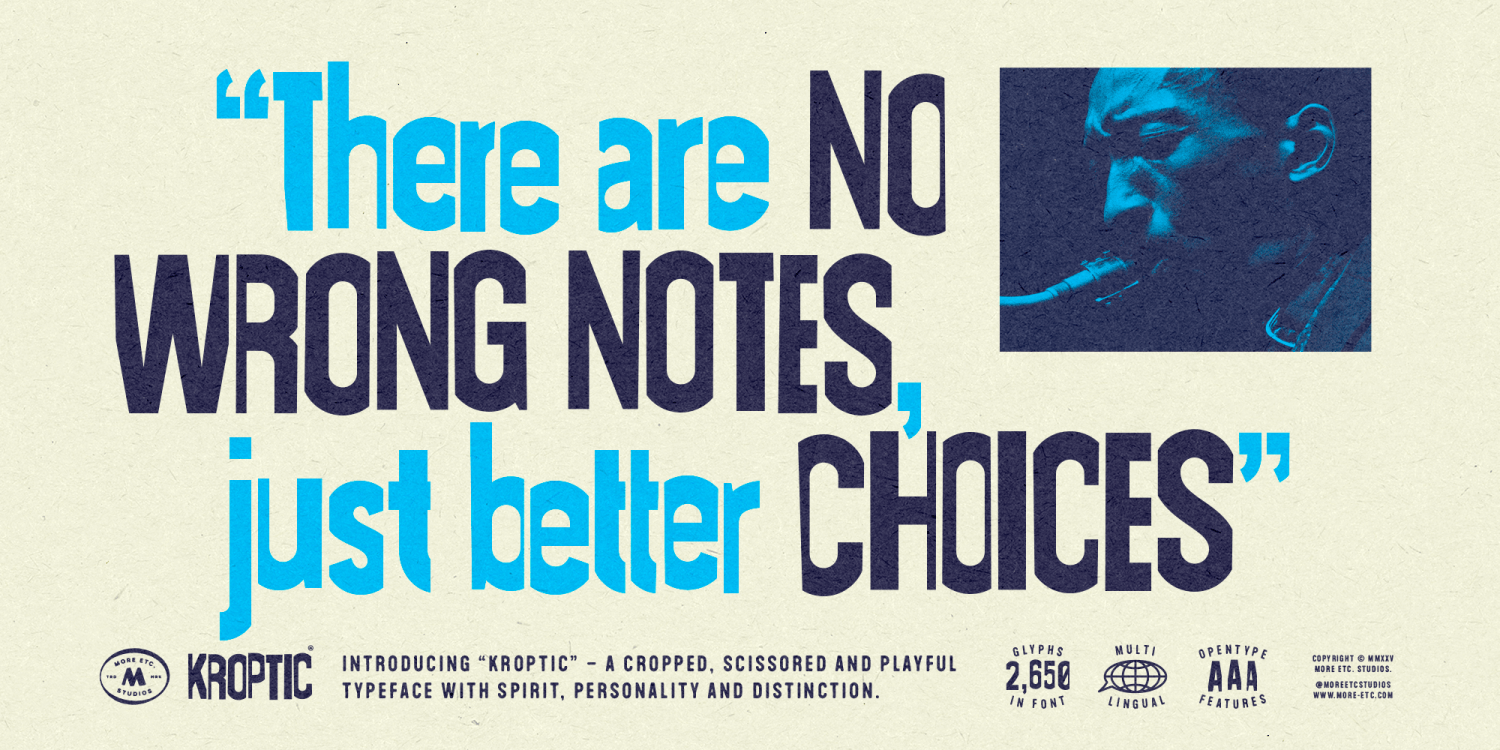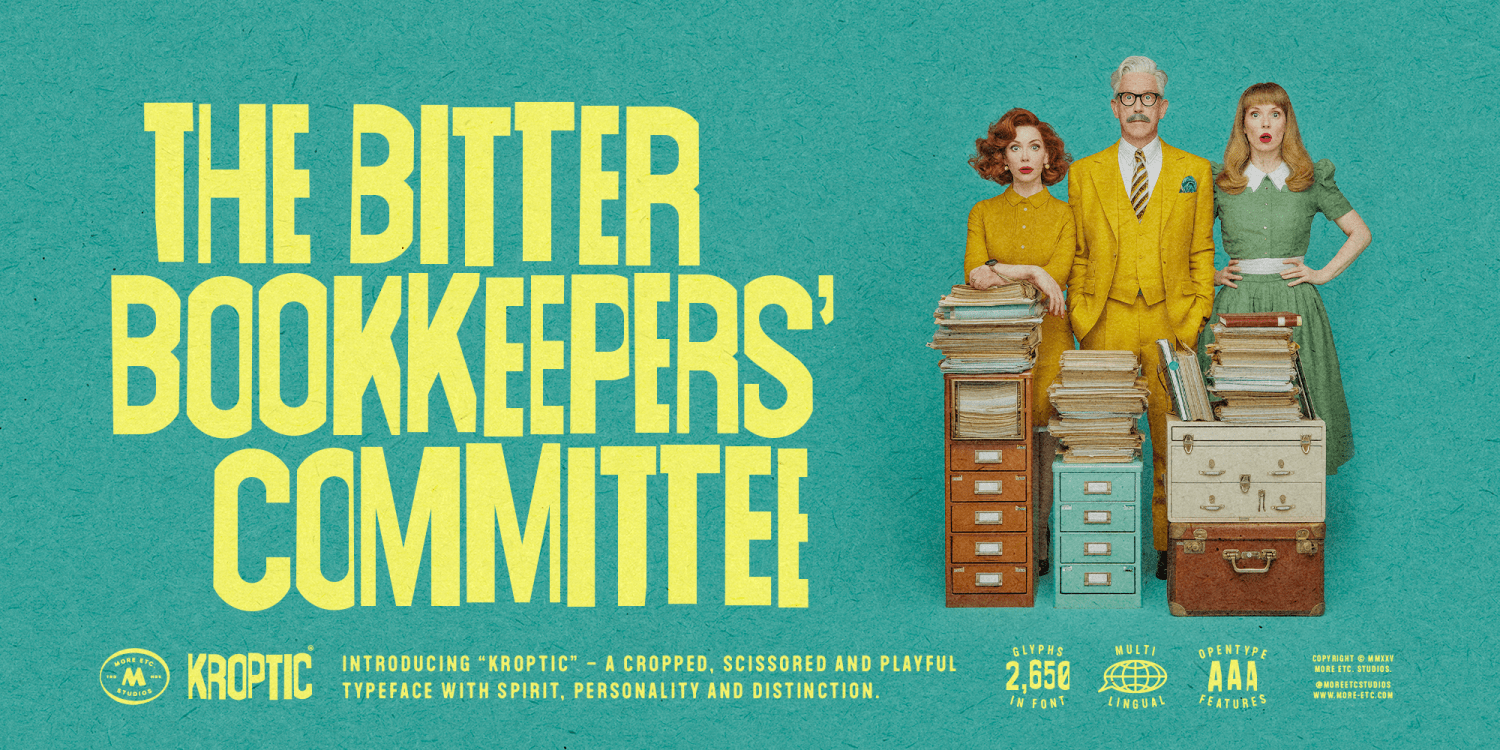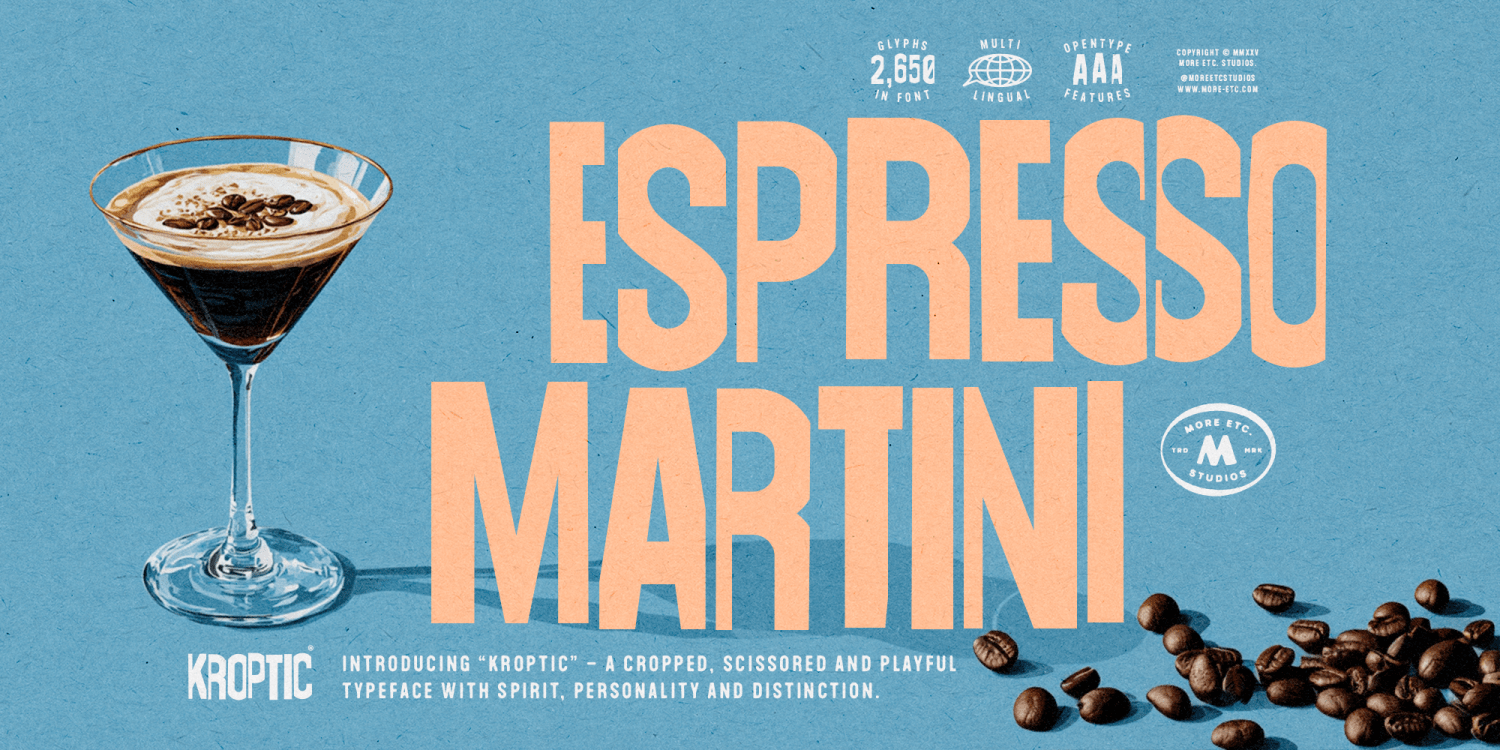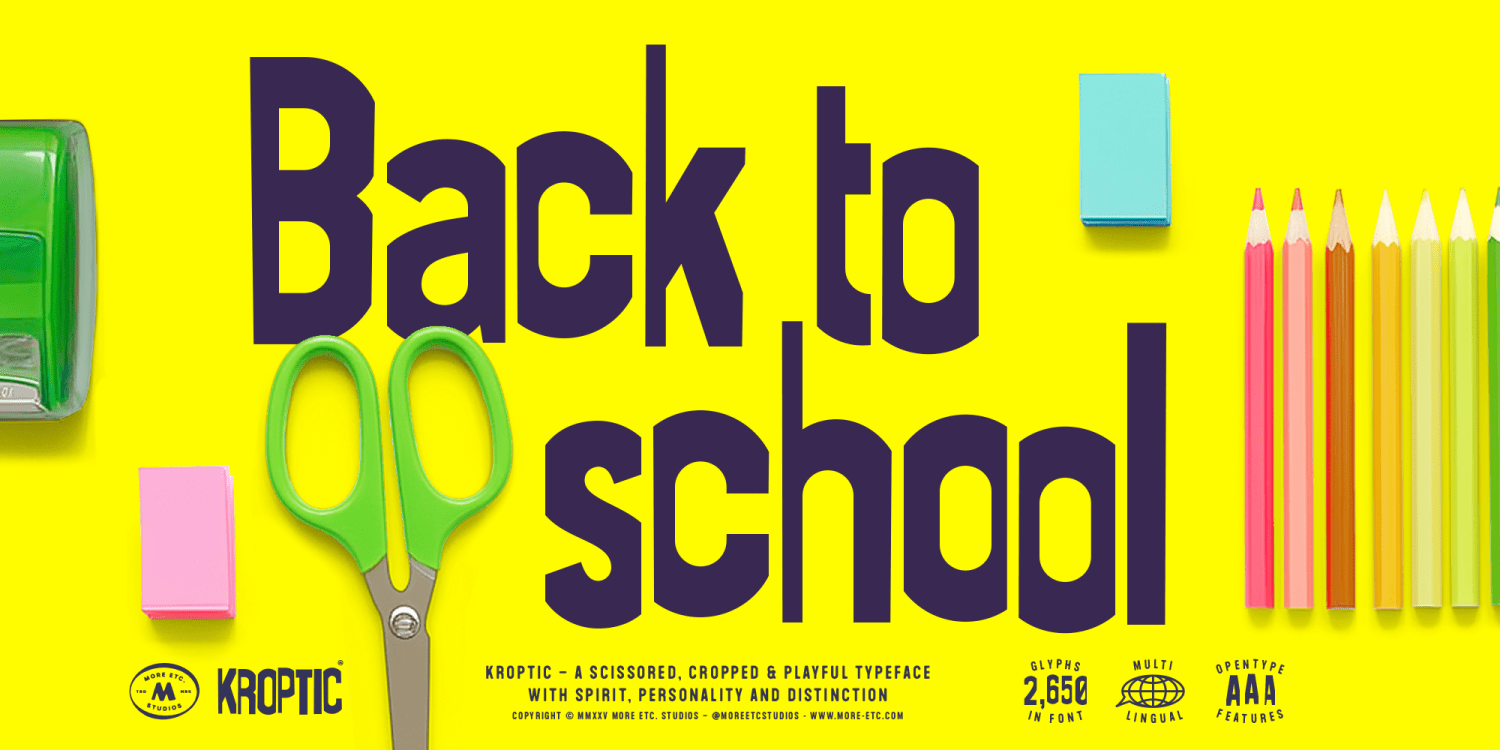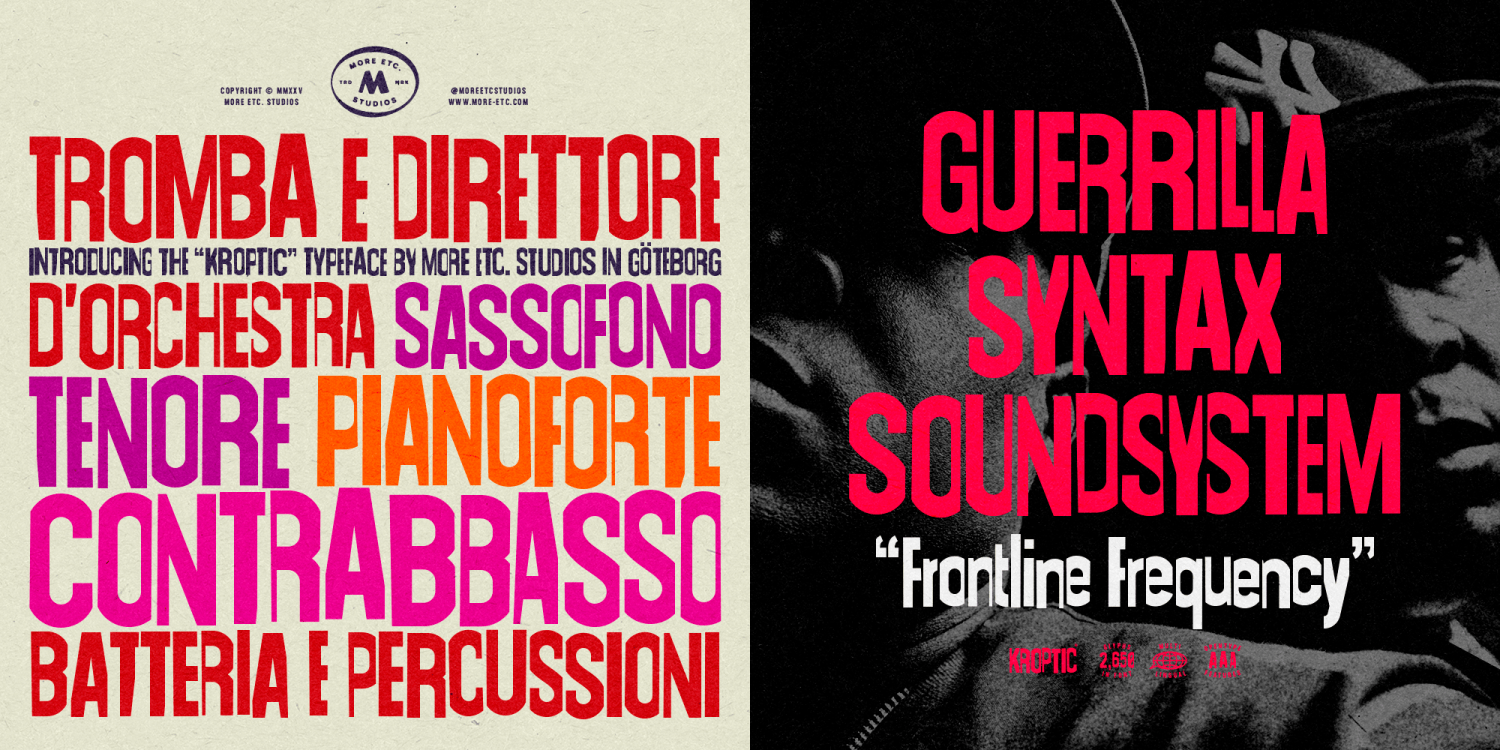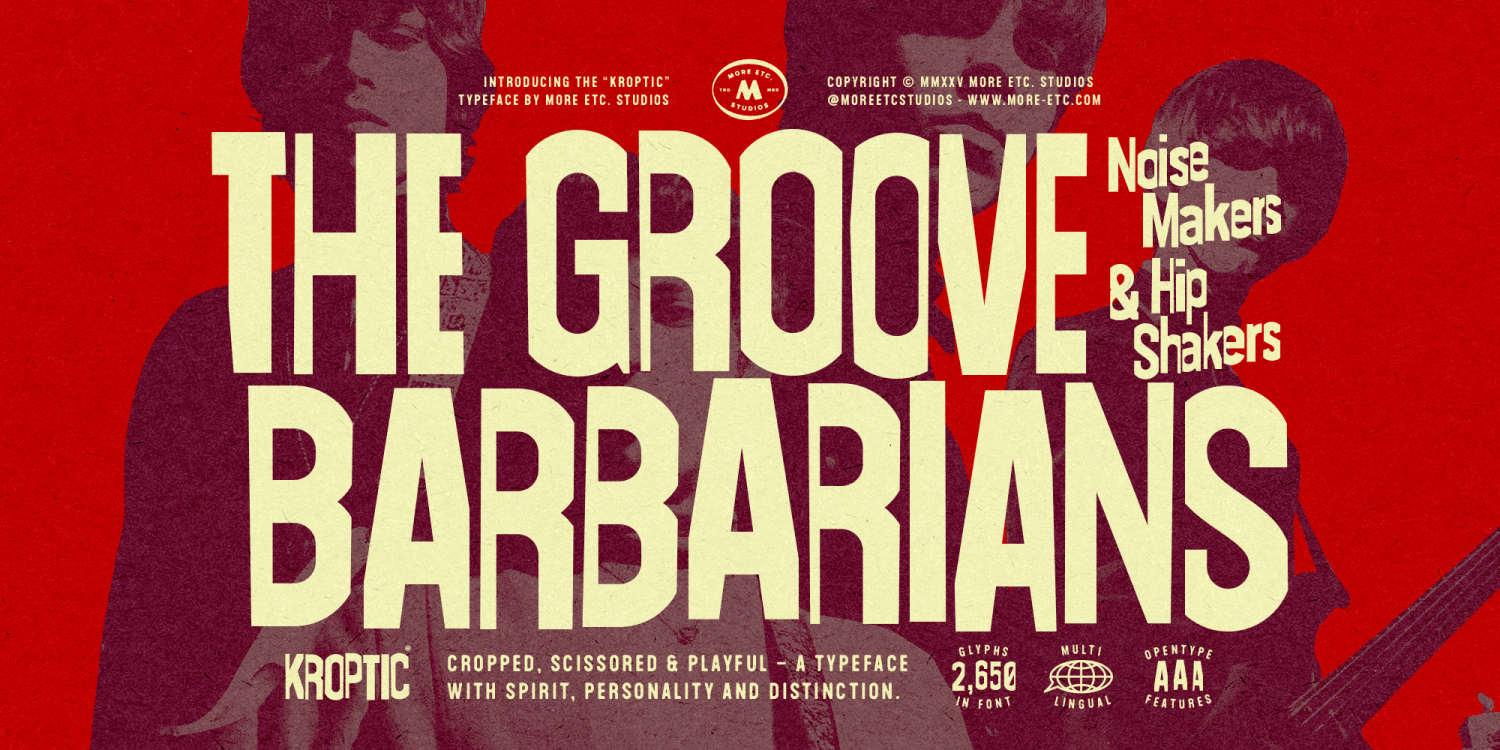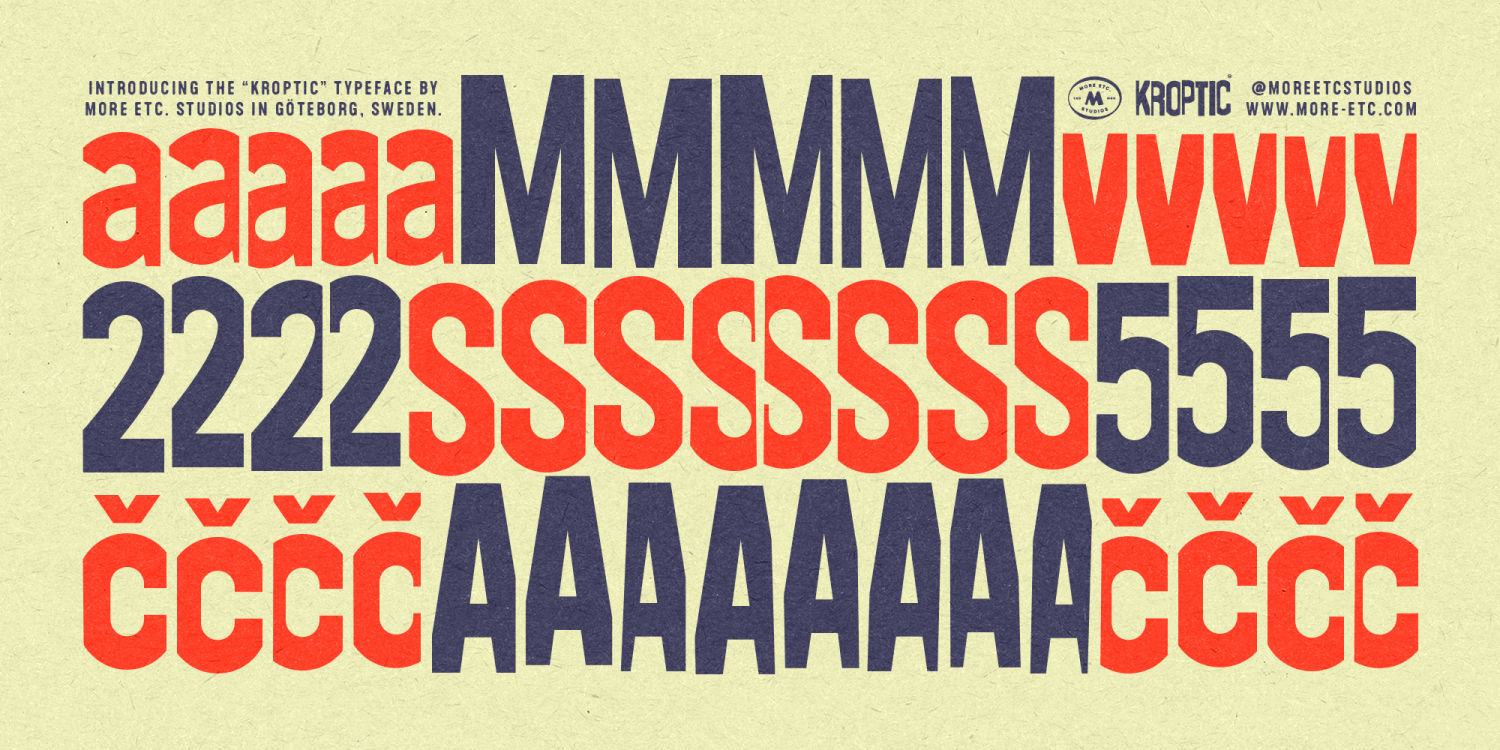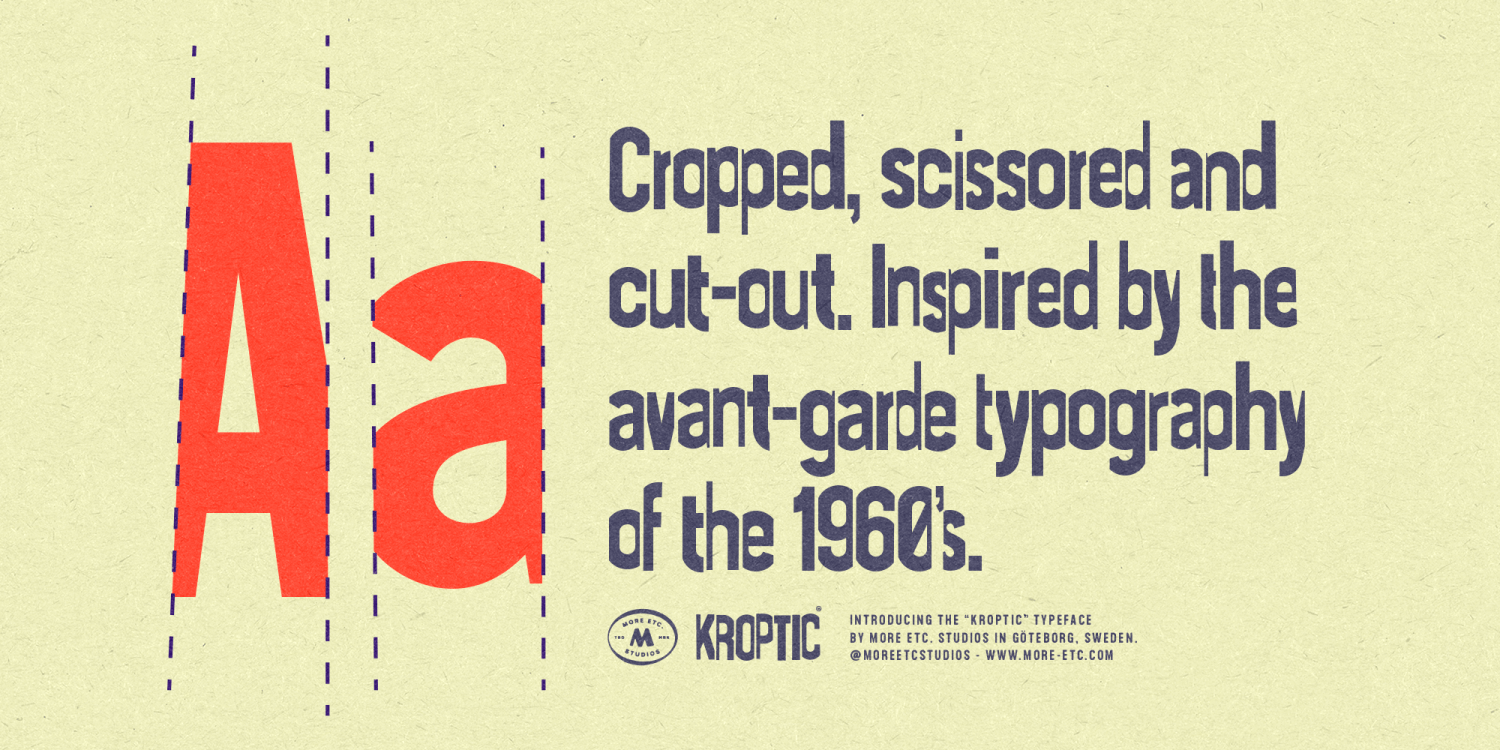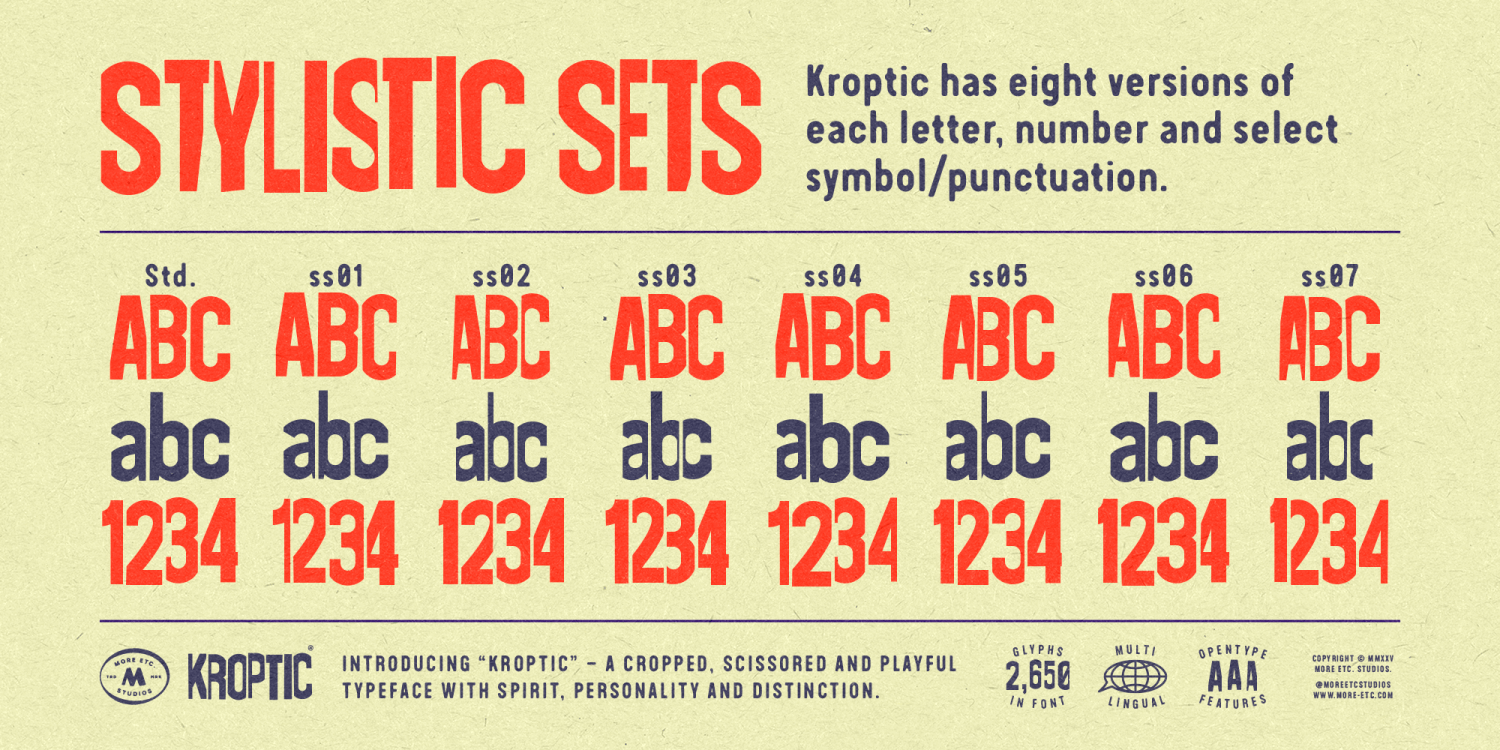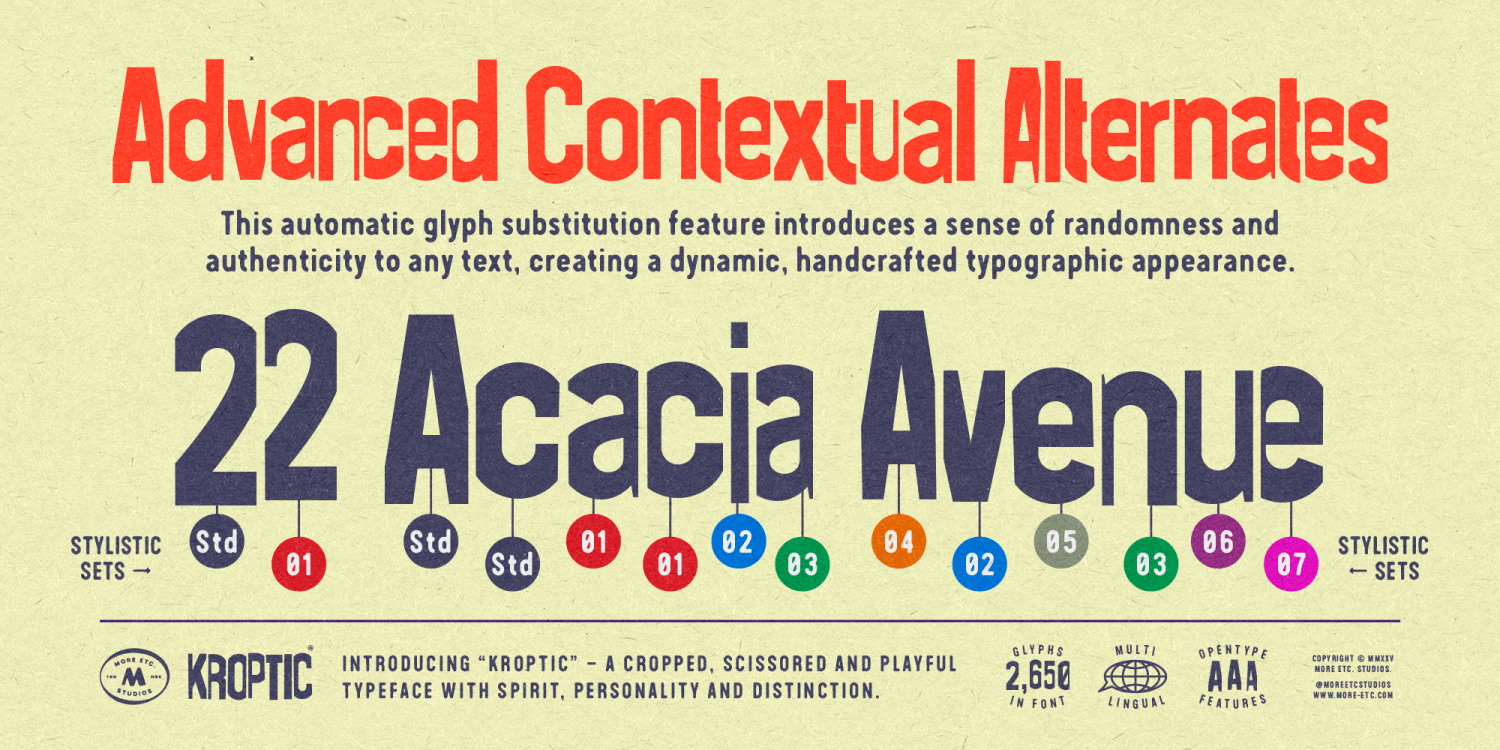
Kroptic
Font Family by More Etc. Studios
Kroptic is a playful display typeface inspired by the cut-out spirit of 1960’s avant-garde typography. Its cropped and scissored forms bring energy and personality to any project while advanced OpenType features keep the text alive with constant variation. Built for bold headlines, posters and branding.
Highlights:
• Playful cut-out display style
• 2,600+ glyphs with full Latin Plus support (200+ languages)
• Every letter, numeral and select symbols come in 8 unique versions
• Advanced Contextual Alternates for natural, non-repetitive text
• Perfect for posters, branding and editorial design